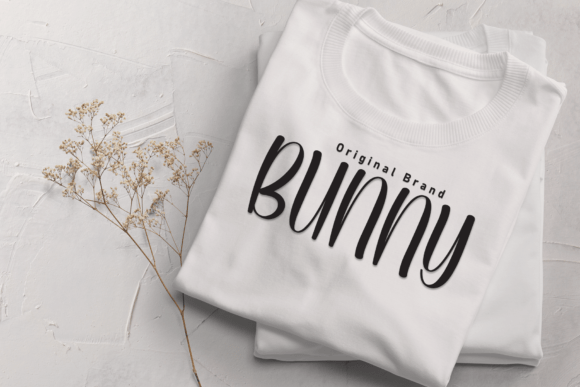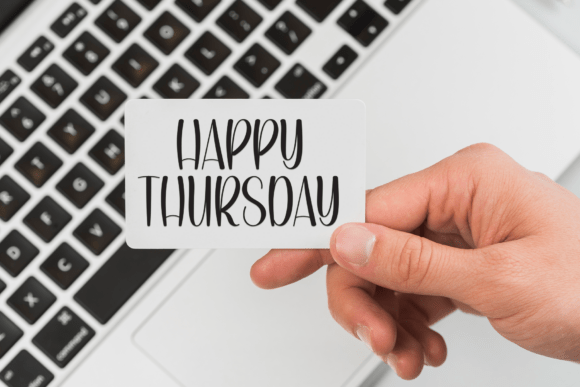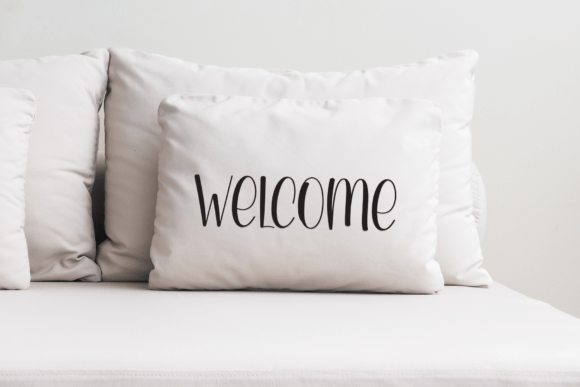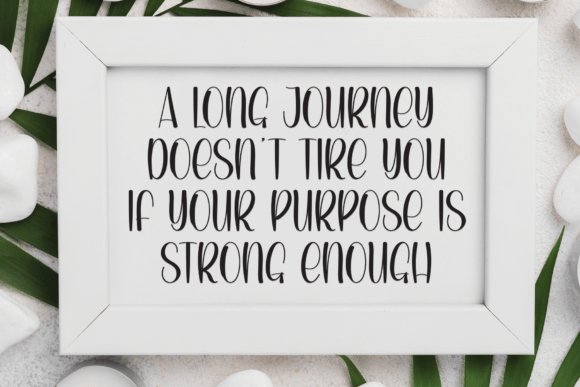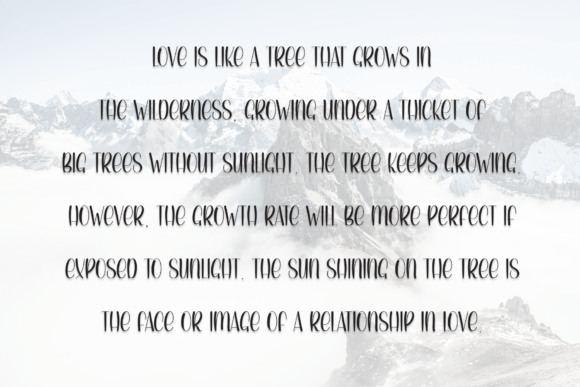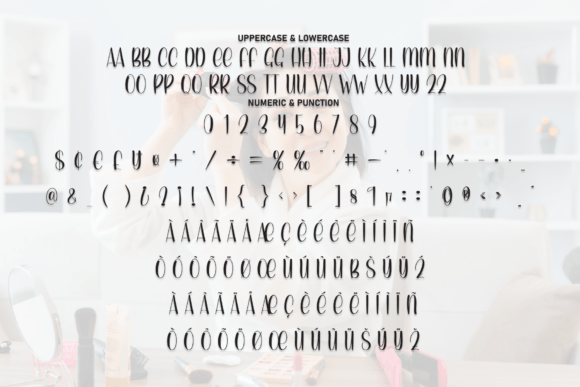
Where Creativity Meets Whimsy
Have you ever been brainstorming a new design project, flipping through your favorite font collections, and suddenly, a single font catches your eye? For many designers, this is the moment when inspiration strikes, and creativity flows freely. It’s the moment when you know you’ve found the perfect font to elevate your design and leave a lasting impression on your audience.
Introducing the Beauty Teacher Font, a stunning handwritten display font that adds a touch of warmth and personality to any design. Its refined tones and jovial temperament make it a perfect fit for wedding invites, greeting cards, and other creative projects where you want to convey a sense of joy and elegance. This font is a valuable addition to any designer’s toolkit, allowing you to breathe new life into your designs and connect with your audience on a deeper level.
Beauty Teacher Font Key Features
- Font Family: Beauty Teacher Font is a sans-serif font with a unique, elegant design.
- Size: The font family includes multiple weights, ranging from Thin to Bold, and each weight has corresponding sizes.
- Resolution: The font is optimized for high-resolution displays and is suitable for use in digital and print media.
- Unique Characteristics: Beauty Teacher Font features a distinctive, hand-drawn look with subtle flair and geometric shapes, making it perfect for fashion, beauty, and lifestyle designs.
Beauty Teacher Font Review
I’ve had the chance to work with the Beauty Teacher Font and here’s my honest review.
- The font is perfect for beauty-related projects, such as makeup tutorials, skincare routines, or fashion blogs. The elegant and sophisticated design makes it ideal for luxury or high-end brands.
- The font is highly legible, even at smaller font sizes, making it perfect for use in body text or captions.
- The font has a unique and feminine touch, which adds a personal and creative element to any design project.
- The font may not be the best choice for bold or edgy designs, as it has a more delicate and refined aesthetic.
- The font may not be suitable for use in headlines or titles that require a lot of emphasis or drama.
- The font is not available in as many weights or styles as some other popular font families.
The Beauty Teacher Font is a lovely addition to any designer’s toolkit. While it may have some limitations, its unique charm and elegant design make it perfect for beauty-related projects or designs that require a touch of sophistication. I would definitely recommend it to anyone looking for a beautiful and feminine font.
Beauty Teacher Font: A Practical Application Guide
The Beauty Teacher Font is suitable for a variety of designs, including:
- Beauty and wellness branding
- Spa and salon marketing materials
- Health and fitness websites and social media
Remember to use the font consistently throughout your design to create a cohesive look and feel.